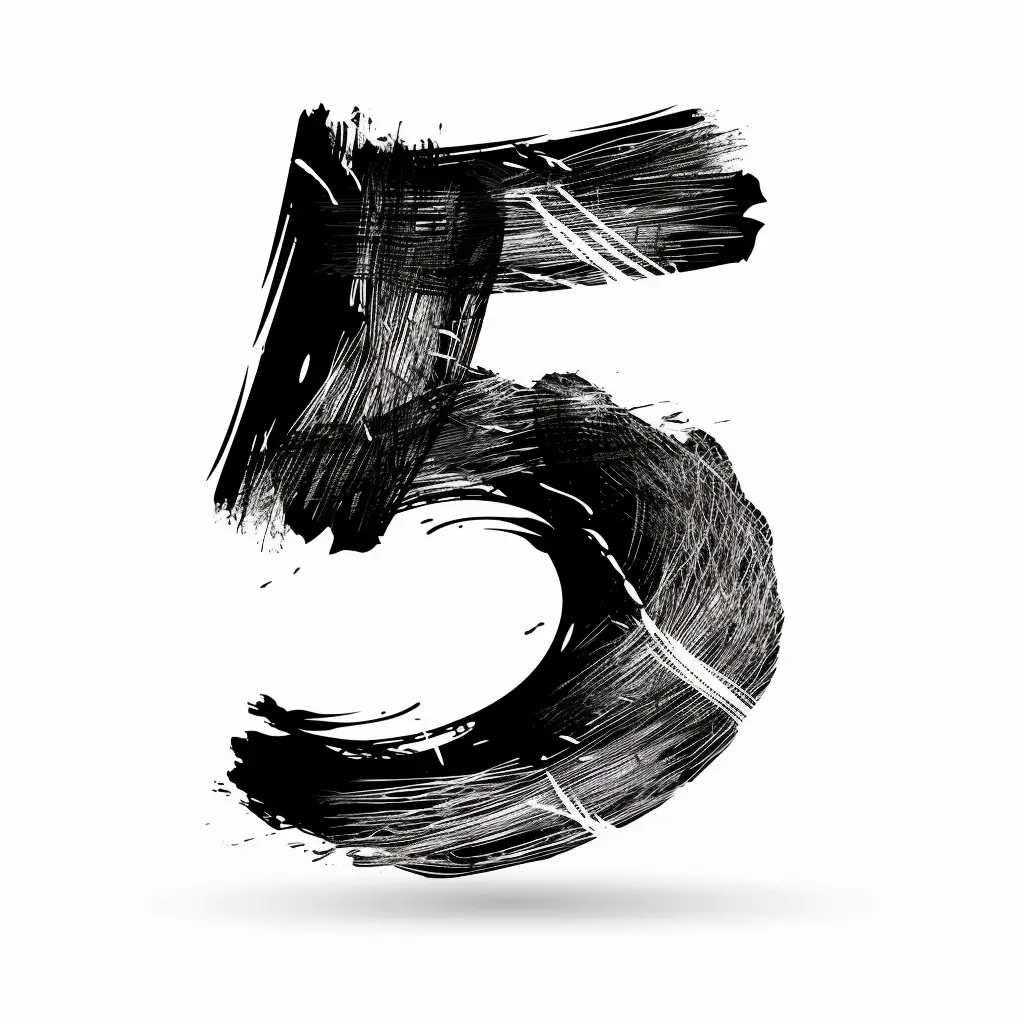
The image features a stylized, hand-drawn representation of the number "5" rendered in bold black brushstrokes with textured, layered lines and subtle white highlights, creating a dynamic, artistic effect. The design has a rough, expressive quality, with a soft gray shadow beneath it, set against a clean white background that emphasizes the contrast and detail of the black ink.